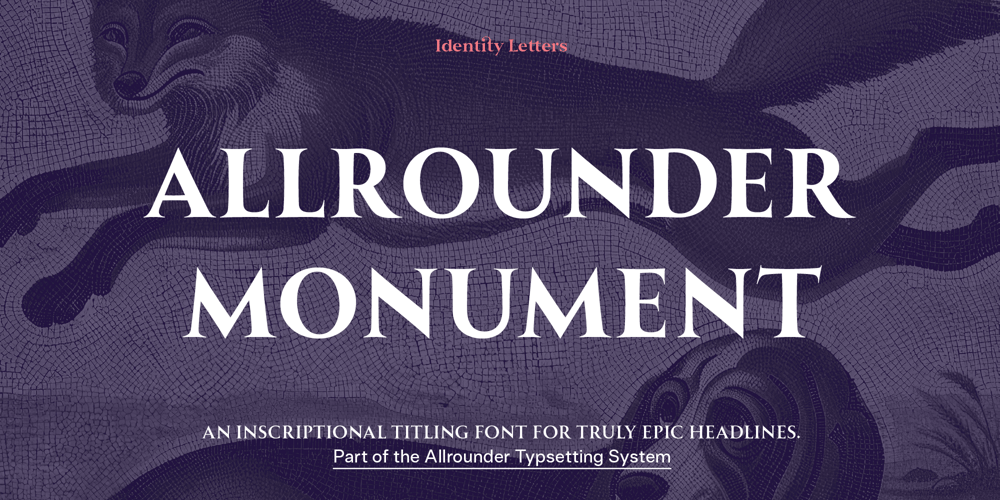
Allrounder Monument Font Family was designed by Moritz Kleinsorge and published by Identity Letters. Allrounder Monument contains 3 styles and family package options. Allrounder Monument is a dignified titling typeface from the Allrounder superfamily. This all-caps serif design was inspired by ancient Roman inscriptions for a hint of history and an air of exclusivity.Its timeless looks are great for posters, magazines, book covers, greeting cards, advertising, and packaging—spiced up with discretionary Ligatures and Stylistic Alternates. Allrounder Monument consists of three weights with almost 600 glyphs each. Its vertical metrics and texture match those of the other Allrounder typefaces: Combining fonts was never easier than with the Allrounder type system.(i) Allrounder Monument was heavily updated in 2024. v2.0 is not compatible with older versions.